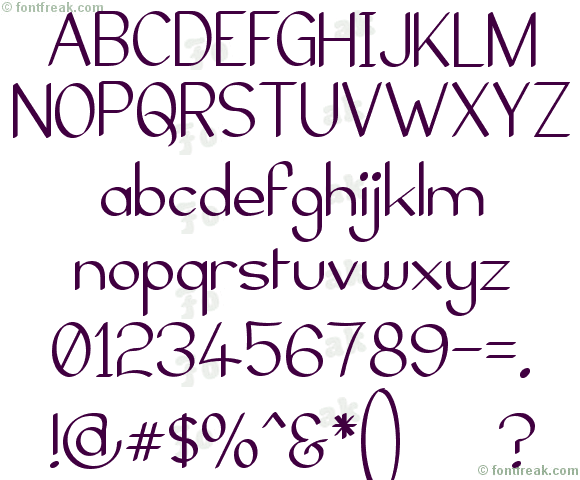
Elfar Normal G98
About Elfar Normal G98
Elfar Normal G98 by Gemfonts is a captivating sans-serif font that perfectly balances modern design with a touch of elegance. Its clean lines and smooth curves create a harmonious visual flow, making it an excellent choice for a variety of projects. The font showcases a medium stroke weight with minimal contrast, allowing for easy readability while maintaining an inviting aesthetic. The spacing between letters is thoughtfully designed to ensure clarity, making it versatile across different platforms.
This font is well-suited for various applications, including wedding invitations where a touch of sophistication is desired, movie posters that require an eye-catching yet legible typeface, and restaurant menus that aim for a contemporary look. Additionally, it's ideal for branding materials, enabling small business owners to present their identity in a polished manner. Graphic designers will find Elfar Normal G98 particularly useful for digital content, as it lends itself to both print and online formats.
What sets the Elfar Normal G98 font apart is its versatility and modern charm. It seamlessly blends functionality with style, allowing users to convey their message effectively while keeping the design visually appealing. Whether you're crafting a personal project or developing professional materials, this font ensures your text stands out. For those interested, the Elfar Normal G98 font free download is a fantastic opportunity to elevate your typography game without any cost.